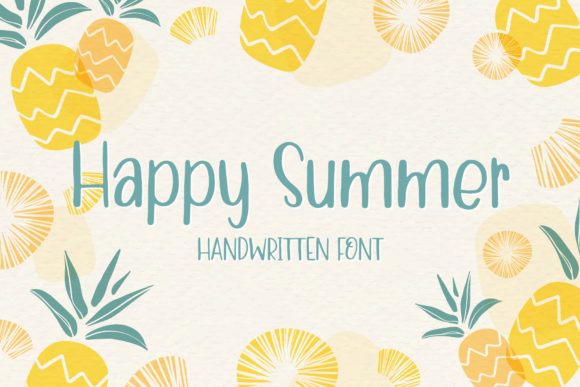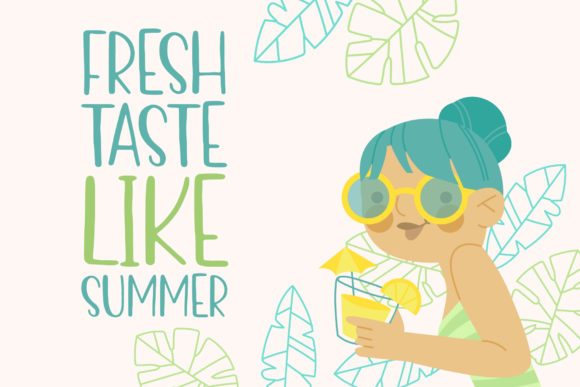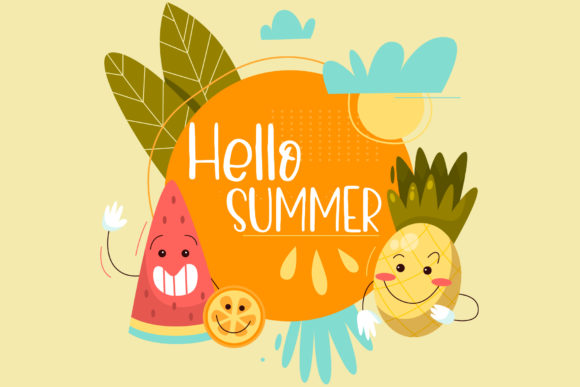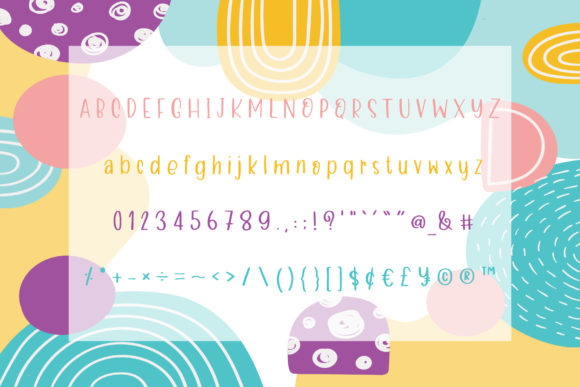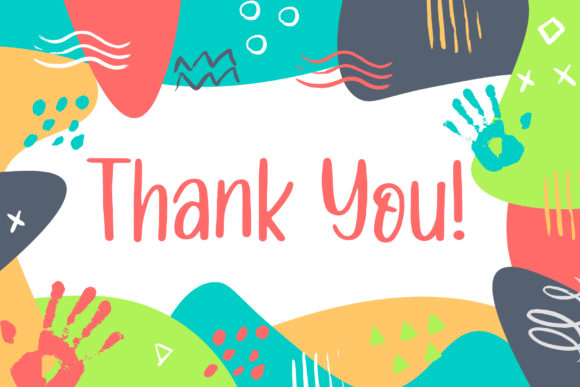
Happy Summer Font
About Happy Summer Font
Happy Summer is a playful and modern handwritten font. Fall in love with its incredibly versatile style and use it to create gorgeous wedding invitations, beautiful stationary art, eye-catching social media posts, and much more!